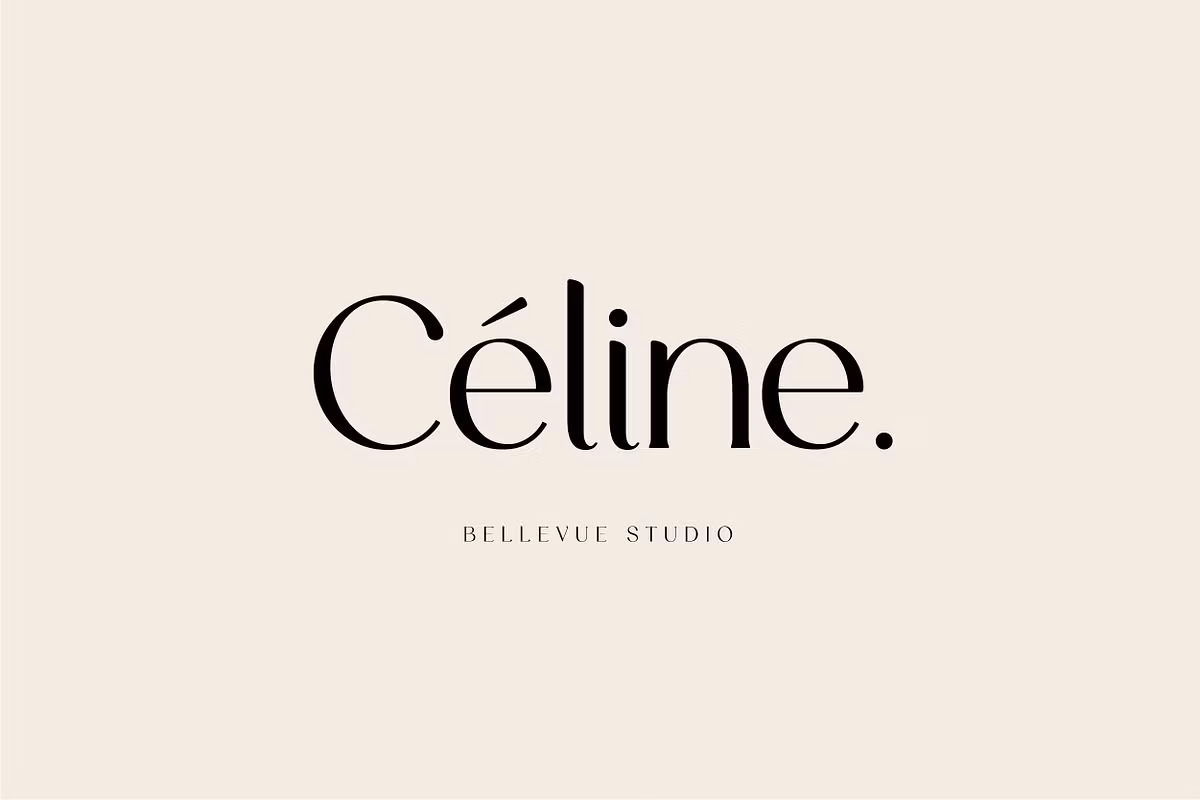
You must purchase this font for commercial use. However, you can download Celine - Delicate Playful Serif Font Free Download for testing purposes. Celine is a charming serif font that blends delicate, elegant strokes with playful, modern details. Its unique design makes it perfect for branding, editorial layouts, invitations, logos, and any project that needs a refined yet fun touch.
With its graceful serifs, smooth curves, and lighthearted character, Celine adds both sophistication and personality to your typography. Whether you’re working on a chic brand identity, creating a stylish invitation suite, or designing a contemporary magazine spread, this font offers versatility and style for a wide range of creative projects.